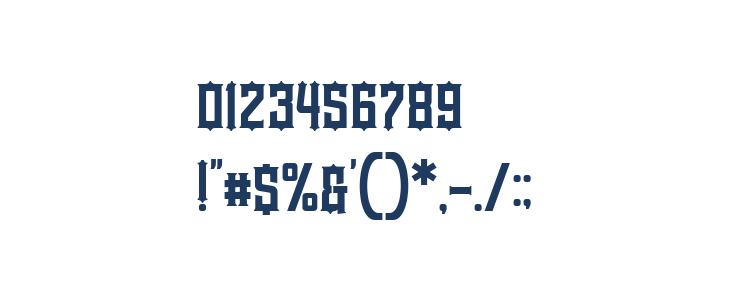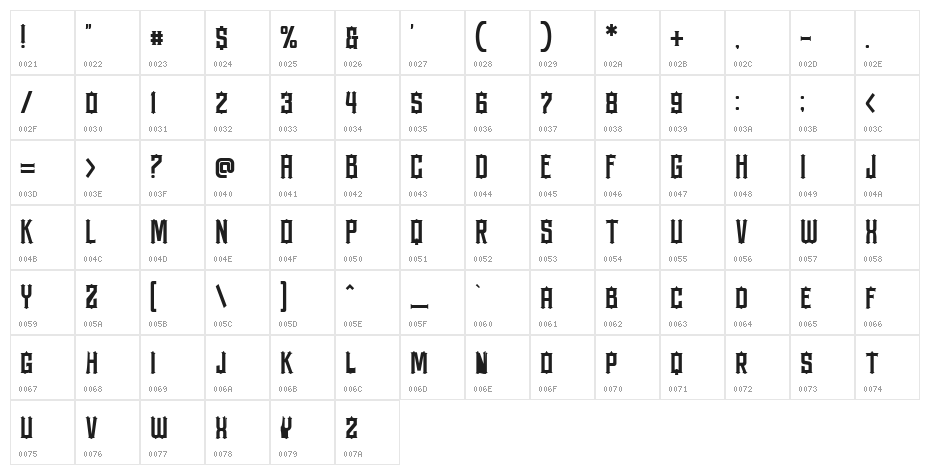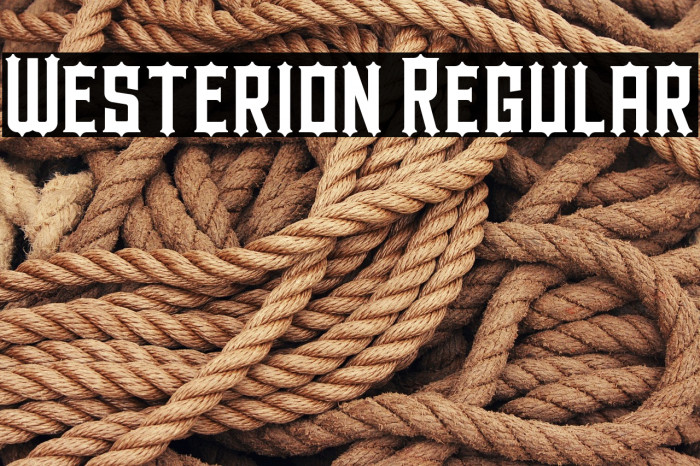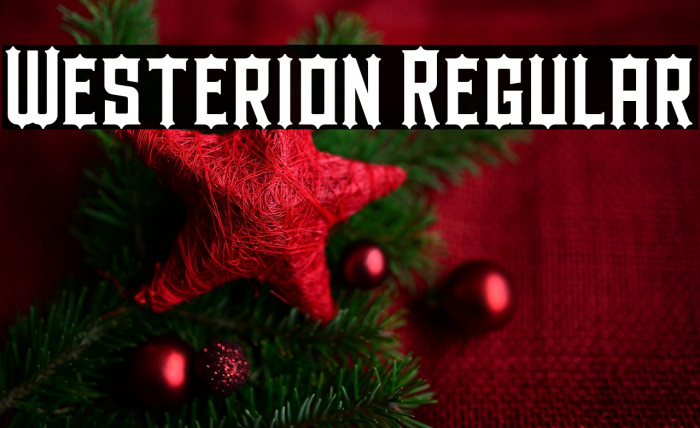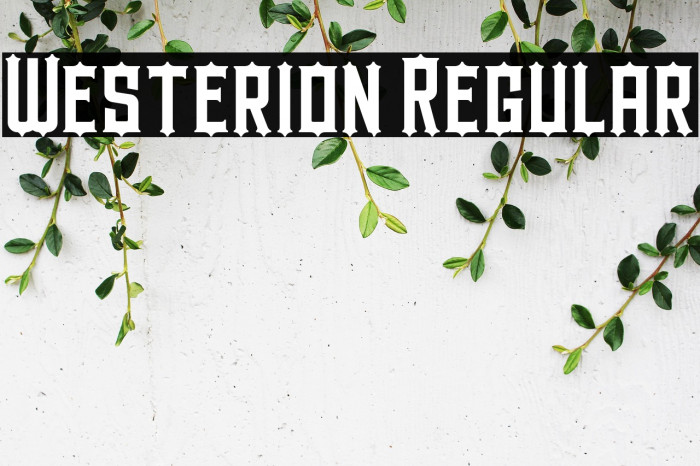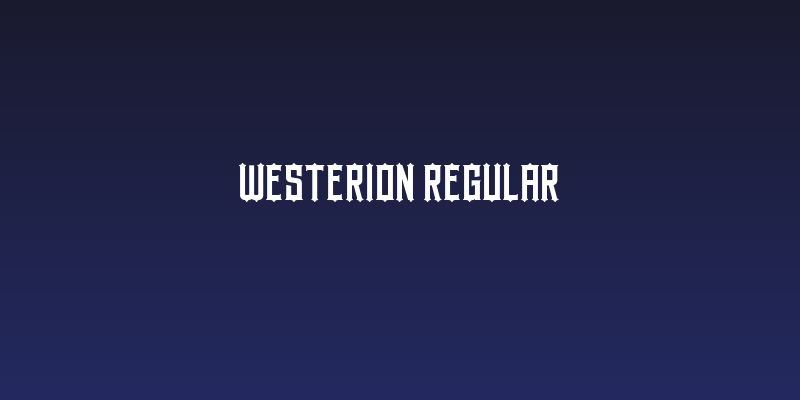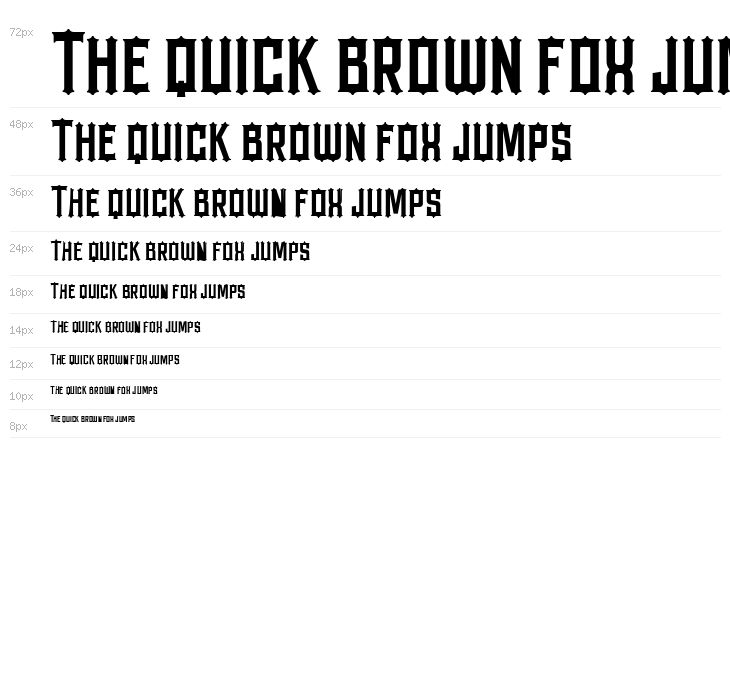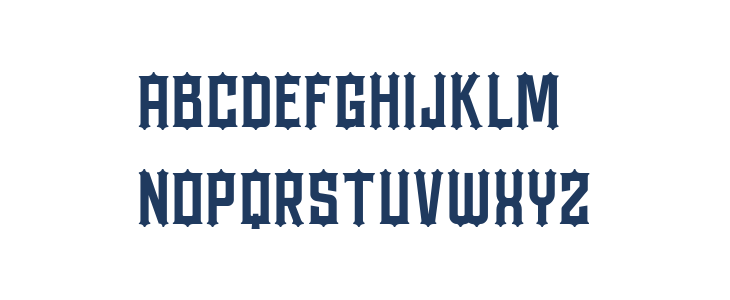
Westerion Regular Font
Westerion Regular Description
This font features a bold and striking design with a distinct Western or vintage flair. The characters are crafted with sharp, angular edges and a strong presence, making them ideal for attention-grabbing headlines or logos. The uppercase letters are particularly prominent, with a uniform height and width that contribute to a cohesive and balanced appearance. The numerals and special characters maintain the same bold style, ensuring consistency across all text elements. The font's decorative nature makes it suitable for projects that require a touch of nostalgia or a rugged, adventurous theme.
| Overall Style | Vintage |
| Proposed Projects | Ideal for posters, logos, branding, and any design needing a vintage or Western theme. |